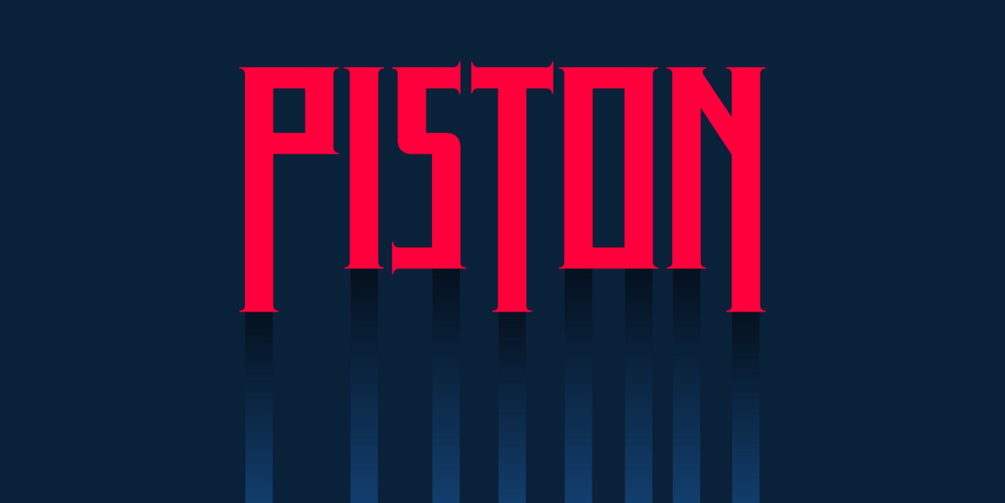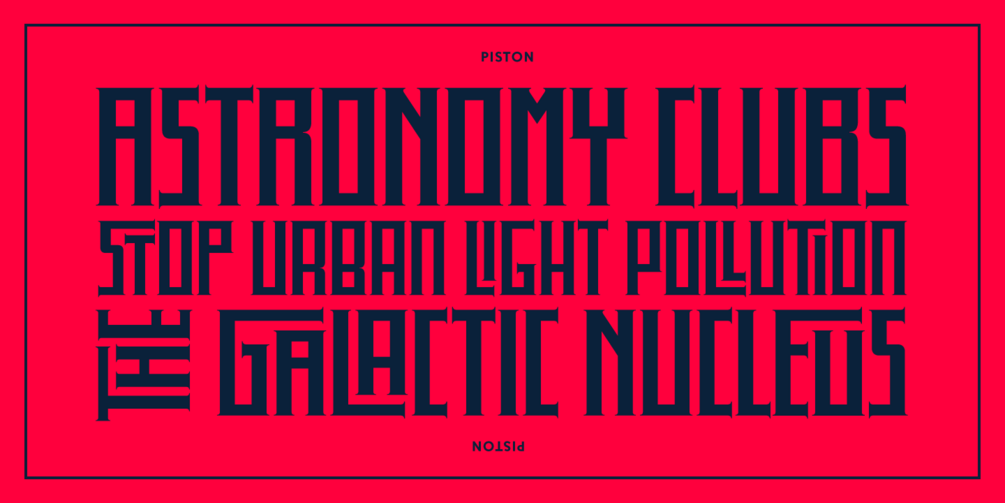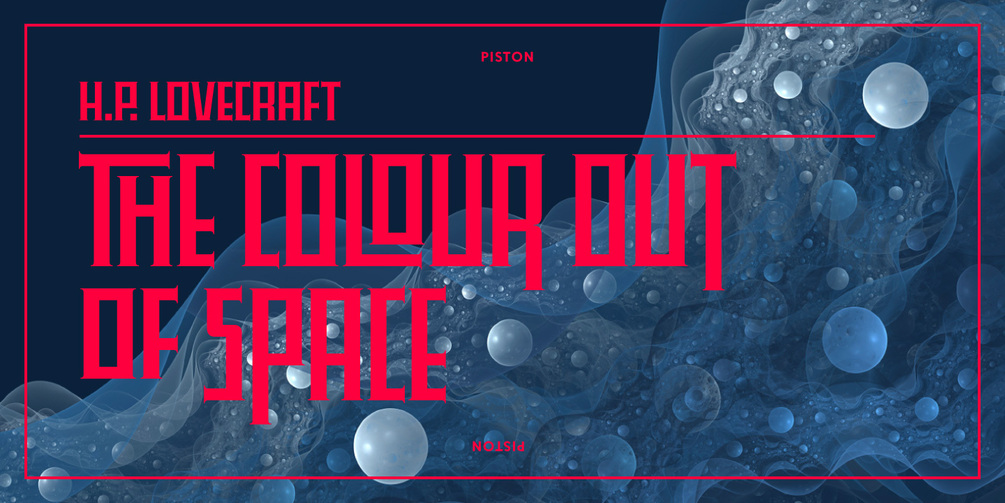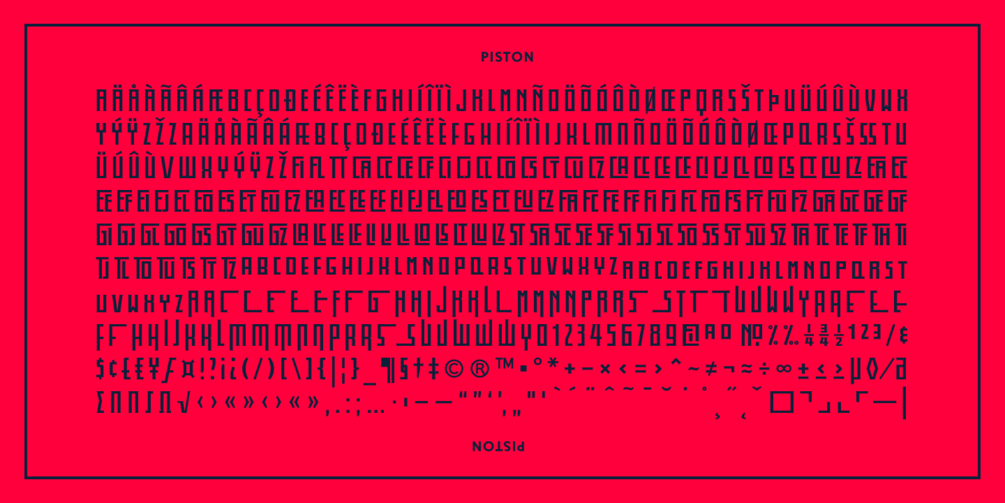
Victorian revivals and inspirations often seize on the period’s tendency toward florid decoration. However, the times were also the final surge of the industrial revolution, a time that witnessed the ultimate development in steam, diesel and oil: engines of all kinds. Piston captures the nitty-gritty of a hard-boned indomitable age, boundless in its faith in the technologies of iron and steel, tempered by half-remembered neo-classical details such as the verticality of neo-gothic windows, and finely detailed finials. It’s all here in the brute strength of the verticals, the blackness of the tight setting, the contrasting delicacy of the terminal serifs.
Steven Skaggs designed Piston as a typeface to be tinkered with. Convert it to outlines, pull the verticals and horizontals, pack it tight, and a headline becomes a logotype. Piston can pump like a line of pistons, turn like a turbine, or use it with discretion as a drop cap with a contrasting neoclassical like Century and you get an immediate boost of horsepower. Anyway you drive it, Piston produces a riveting experience for the viewer.
Use Piston big. Convert it to outlines and customize it to your liking by pulling out horizontal or vertical strokes. Pack in some horizontal bars where it makes sense. This typeface is great for logos, movie posters, DVDs, magazine headlines, book covers, and packaging for toys, cars, tools, cookware, and much more.